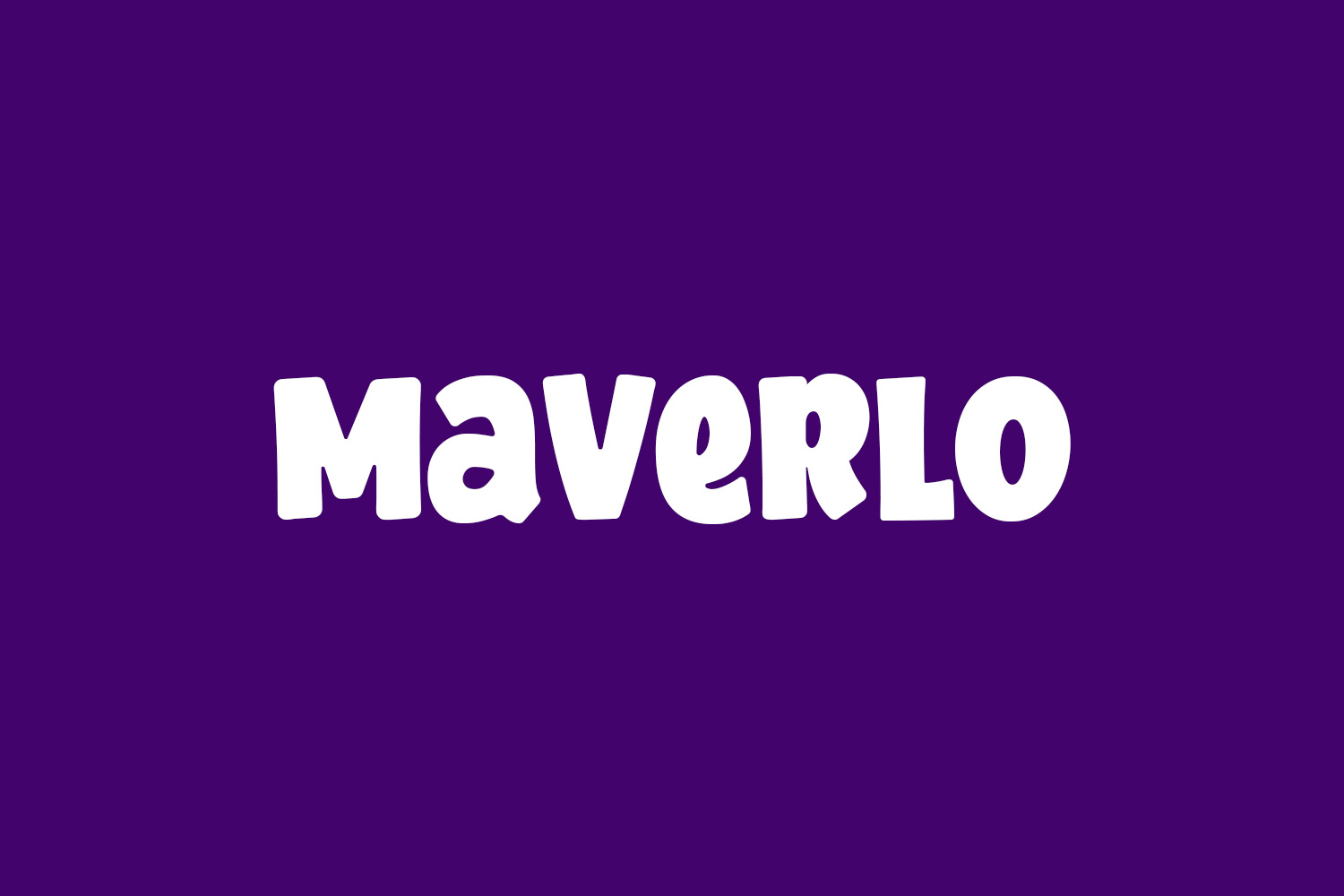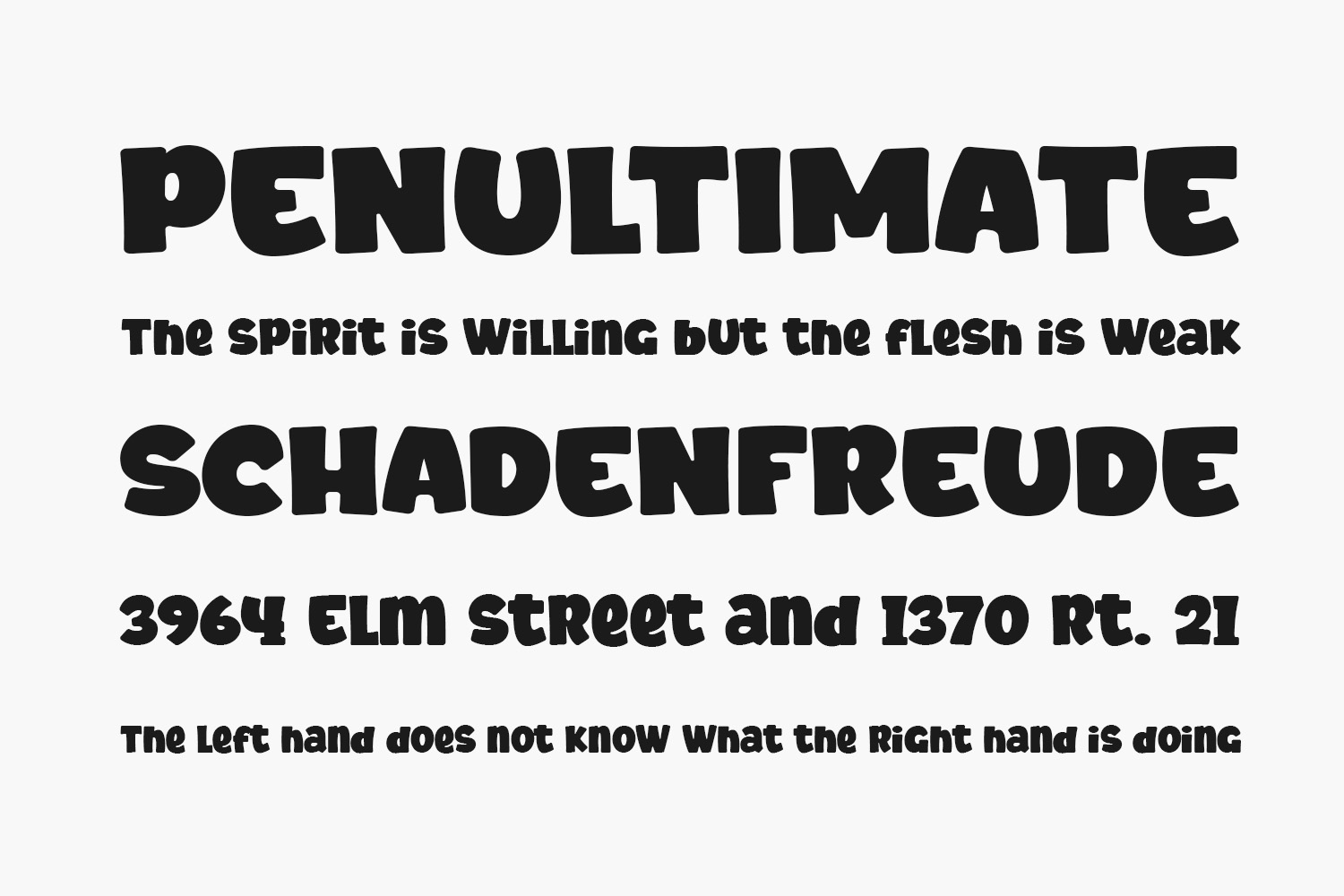
Maverlo Free Font is a bold and thick lettered display font. Whether you use it for cartoon related designs, children’s games, or just any creation that requires a lovely touch, this font will be an amazing choice. Maverlo Free Font was designed by Bangkit Tri Setiadi and is free for personal use only. Please purchase the full version for commercial use.